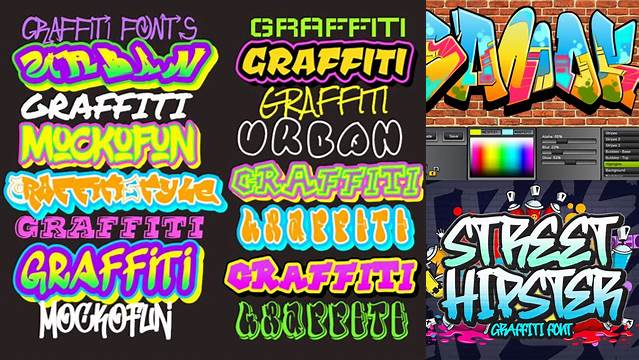
Free Graffiti Font Generators: Create Cool Text Now!
Hey guys! Ever wanted to create some awesome graffiti art but didn't know where to start? Or maybe you're looking for the perfect font to add that urban edge to your designs? Well, you've come to the right place! In this article, we're diving deep into the world of graffiti font generators, exploring the best free options out there, and giving you the lowdown on how to use them. We’ll cover everything from understanding what makes a great graffiti font to the top tools you can use right now. So, buckle up and get ready to unleash your inner street artist!
What Makes a Great Graffiti Font?
First things first, let's talk about what actually makes a graffiti font great. It's not just about looking cool (though that's definitely a big part of it!). A truly fantastic graffiti font needs to capture the essence of street art – the raw energy, the bold lines, and the rebellious spirit. When we talk about the characteristics of graffiti fonts, we're looking at a few key elements that differentiate them from your everyday Arial or Times New Roman. Think about the fonts you've seen spray-painted on walls, trains, and buildings. What stood out? Was it the chunky, blocky letters? The wild, swirling lines? The way the letters seemed to almost jump off the surface? These are the kinds of qualities we're aiming for.
Understanding Graffiti Aesthetics
Graffiti isn't just about writing words; it's an art form. It's about making a statement, expressing yourself, and leaving your mark on the world (literally!). So, the fonts used in graffiti need to reflect this ethos. They often feature bold, thick strokes that mimic the effect of spray paint. Letters might be distorted, overlapping, or even partially obscured, adding to the sense of dynamism and movement. The best graffiti fonts have an unmistakable street vibe. They look like they belong on a brick wall, not in a corporate report. They have an attitude, a swagger, and an undeniable visual impact.
Key Characteristics to Look For
So, what are some specific characteristics to keep in mind when you're searching for the perfect graffiti font? One of the most important is legibility. While some graffiti styles are intentionally abstract and difficult to read, most effective graffiti fonts strike a balance between artistic flair and clarity. You want your message to be seen and understood, after all! This means considering the spacing between letters, the overall shape of each character, and the contrast between the font and its background.
Another key element is the style. Graffiti fonts come in a wide range of styles, from classic block letters to wildstyle scripts and everything in between. Some fonts have a clean, almost geometric look, while others are more organic and free-flowing. Some are bold and aggressive, while others are more subtle and refined. The style you choose will depend on the specific project you're working on and the message you want to convey. Think about the overall tone and feel you're going for, and choose a font that fits the bill.
Why Use a Graffiti Font Generator?
Now, you might be wondering, why use a font generator at all? Why not just find a pre-made font online or, better yet, learn to create your own graffiti art by hand? Well, there are several reasons why a graffiti font generator can be a fantastic tool, especially for beginners. For one thing, it's incredibly convenient. With a font generator, you can create custom graffiti text in seconds, without having to spend hours searching for the perfect font or painstakingly drawing each letter by hand. This can be a huge time-saver, especially if you're working on a tight deadline or just want to experiment with different styles and ideas.
Another major advantage of using a font generator is the sheer variety of options available. Many generators offer a wide range of fonts, styles, and customization options, allowing you to create a truly unique look. You can adjust the size, color, spacing, and other parameters to fine-tune your text and get exactly the effect you're looking for. Plus, font generators often allow you to preview your text in real-time, so you can see how it will look before you commit to a final design.
Top Free Graffiti Font Generators
Alright, let's get to the good stuff! We've scoured the internet and rounded up some of the best free graffiti font generators out there. These tools offer a variety of fonts, styles, and customization options, so you're sure to find something that fits your needs. We'll walk you through each one, highlighting its key features and benefits, so you can make an informed decision about which one to use. Remember, the best font generator for you will depend on your specific goals and preferences, so don't be afraid to experiment and try out a few different options.
1. Font Graffiti Generator
This generator is a classic choice for a reason. It's simple, straightforward, and offers a range of cool graffiti fonts. You just type in your text, choose a font, and voila! You've got instant graffiti. One of the things we love about this generator is its ease of use. The interface is clean and intuitive, so even if you're a complete beginner, you'll be able to create amazing graffiti text in no time. Plus, the generator offers a good selection of fonts, from classic block letters to more stylized scripts, so you can find something that matches your vision.
Features:
- Wide range of graffiti fonts: From bubble letters to wildstyle, there's something for everyone.
- Easy-to-use interface: Simple and intuitive, perfect for beginners.
- Customizable text size and color: Adjust the size and color of your text to get the perfect look.
So, there you have it! A comprehensive guide to the best free graffiti font generators out there. We've covered everything from what makes a great graffiti font to how to use these tools to create amazing designs. We've also given you some tips for creating awesome graffiti art, and we've explored some of the many ways you can use your graffiti fonts. Whether you're a graphic designer, a street artist, or just someone who loves the look of graffiti, these font generators are a fantastic resource. They're easy to use, versatile, and completely free. So, what are you waiting for? Go ahead and unleash your inner street artist! Experiment with different fonts, styles, and techniques, and see what you can create. And don't forget to share your creations with us – we can't wait to see what you come up with!